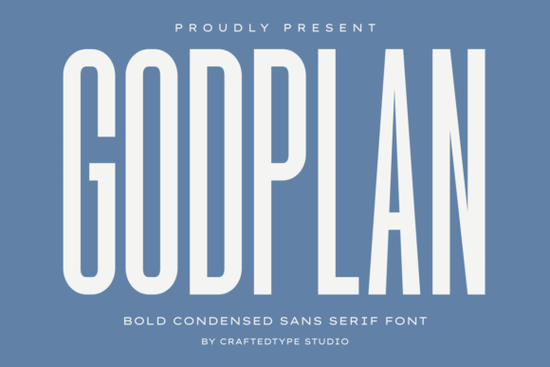
When you need typography that demands attention without taking up too much horizontal space, condensed sans serif typefaces are often the best solution. This is especially true for print-on-demand sellers and designers working on apparel where screen real estate is limited. The Godplan Font is built specifically for these high-impact scenarios. It combines a tall, compact structure with solid visual weight, making it easier to fit long messages on t-shirts or posters while maintaining readability.
Many creators struggle to find a font that feels modern and authoritative without looking too generic. This typeface offers a clean architectural feel that avoids unnecessary decoration. Its thick strokes ensure that your message is seen and felt, even from a distance. Whether you are creating motivational quotes for social media or branding for a sports team, the stability of this font helps convey professionalism and strength.
What kind of projects suit this style best?
Condensed fonts are incredibly versatile, but they shine in specific contexts where space is at a premium. For print-on-demand businesses, this typeface works beautifully on gym apparel and urban streetwear. The narrow profile allows you to place larger text across the chest of a shirt without it wrapping awkwardly around the sides. It also performs well on motivational posters where the text needs to be the main focal point.
Beyond apparel, this font is suitable for cinematic film titles and bold headlines. If you are building a brand identity for a corporate project that requires a sharp, contemporary edge, this style provides the necessary weight. It pairs well with imagery that is bold and high-contrast. However, if you need something softer for a lifestyle brand, you might consider looking at softer duo styles that offer a more delicate balance between script and sans serif elements.
For sports branding, the aggressive stance of condensed typography often matches the energy of the team or event. It creates a sense of movement and power. If you want to explore even more rugged options, you could compare this against stencil variations that offer a military-inspired aesthetic. While stencils are great for specific themes, a clean sans serif like this one remains more versatile for general commercial use.
How does it compare to other sans serif options?
Not all sans serif fonts are created equal. Some are designed for body text, while others are made for display purposes. This particular font falls firmly into the display category. It is not intended for long paragraphs of text but rather for short, punchy phrases. If you are working on a project that requires a minimalist approach for body copy, you might browse minimalist styles that are optimized for readability at smaller sizes.
When designing logos or social media graphics, contrast is key. Using a bold condensed font for the main logo mark can be effective when paired with a simpler secondary font. For signatures or personal touches on a design, adding a handwritten accent can break up the rigidity of the bold letters. This combination creates a dynamic look that feels both professional and personal.
The key difference here is the visual weight. Many modern fonts try to be too thin to appear elegant, which can cause visibility issues on dark fabrics or busy backgrounds. This typeface avoids that problem with its solid structure. It ensures that your design remains legible regardless of the material it is printed on.
What technical features are included?
For crafters using cutting machines like Cricut or Silhouette, file compatibility is crucial. This font comes in both OTF and TTF formats, ensuring it works across Windows, Mac, and various design software platforms. More importantly, it is fully PUA encoded. This means you can access all the special characters and glyphs without needing to copy and paste from a separate character map.
PUA encoding saves time during the design process. You can type directly into your software and access alternate characters easily. This feature is particularly helpful when creating unique ligatures or stylistic sets that make your design stand out from competitors using the same base font. You can review the full specifications when you view the collection here to ensure it meets your specific software requirements.
How do you maximize readability with condensed type?
Using condensed fonts requires a bit of attention to spacing. Because the letters are narrow, kerning (the space between individual characters) needs to be adjusted carefully. If the letters are too tight, the text becomes hard to read. If they are too loose, the word loses its cohesive shape. Always preview your design at 100% scale before finalizing it for print.